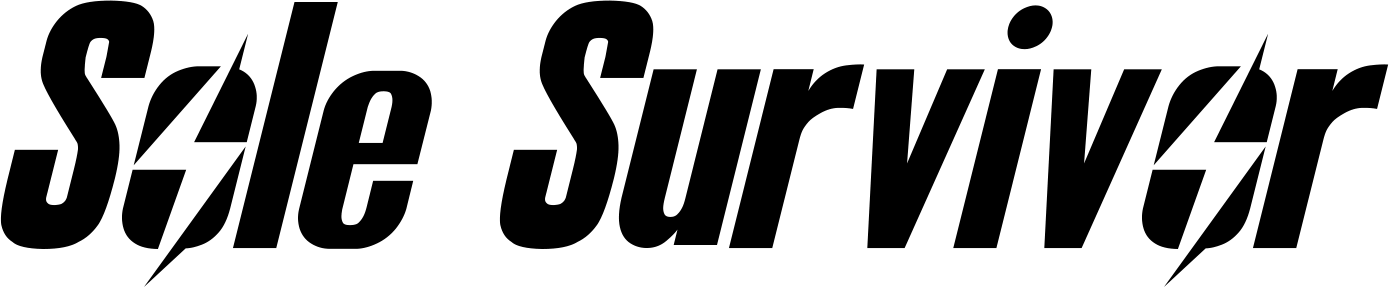
Sole Survivor Font
If you have a project like website headers, logos, branding, and magazines that need a futuristic kinda mood you just need the right font to create that vibe. For that requirement, we suggest Sole Survivor which is a techno font.
This slanted bold font comes in 2 styles and they contain both the uppercase and lowercase of the alphabet, the numbers, and the punctuation marks.
Grab your sidekick and tour the wastelands!
Yeah, it’s the font for Fallout…at least my take on it. Two versions – one with the lightning O and one without.